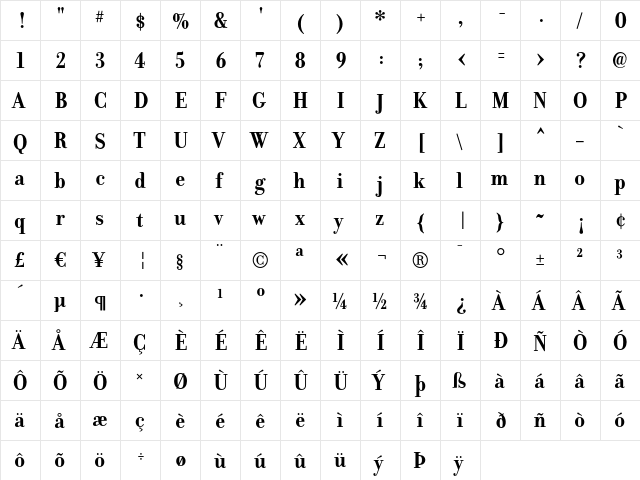
Donatora Bold
Design Context for Donatora Typeface
Donatora takes a measured approach to typography — its balanced proportions and neutral character make it a reliable workhorse for both digital and print work. The heavy weight commands attention and anchors typographic hierarchies.